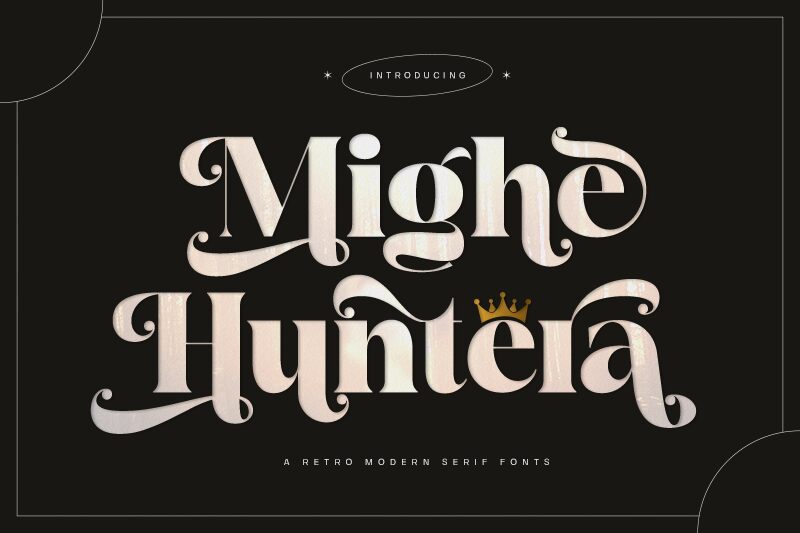
Namara Creative’s Mighe Huntera, a captivating serif typeface, is a great way to evoke retro-modern nostalgia. This bold and striking font has its own uniqueness based on 1990s typographic styles that combine timelessness with some modern feel. Its sharp serifs and strong strokes are still as relevant today as they ever were, hence making it an attractive option for designers who desire to bring about vintage-influenced certainty.
Mighe Huntera is highly versatile and can be used effectively in a variety of applications including dynamic editorial layouts through impactful branding and packaging. Its loud presentation makes it well-suited for use in headlines, titles or display texts where it gets noticed effortlessly. Whether producing a retro poster graphic or managing an engaging visual blog or even creating brand identity that stands out, the font will always represent the past while living in the present.
Mighe Huntera